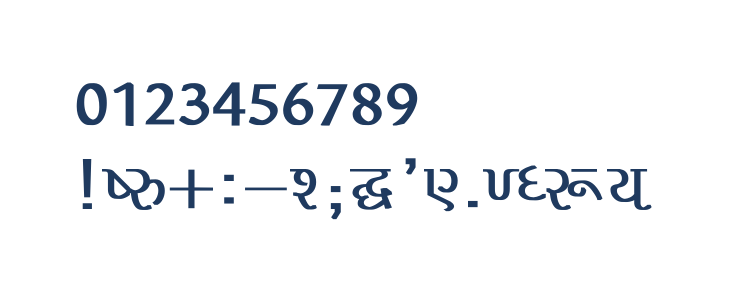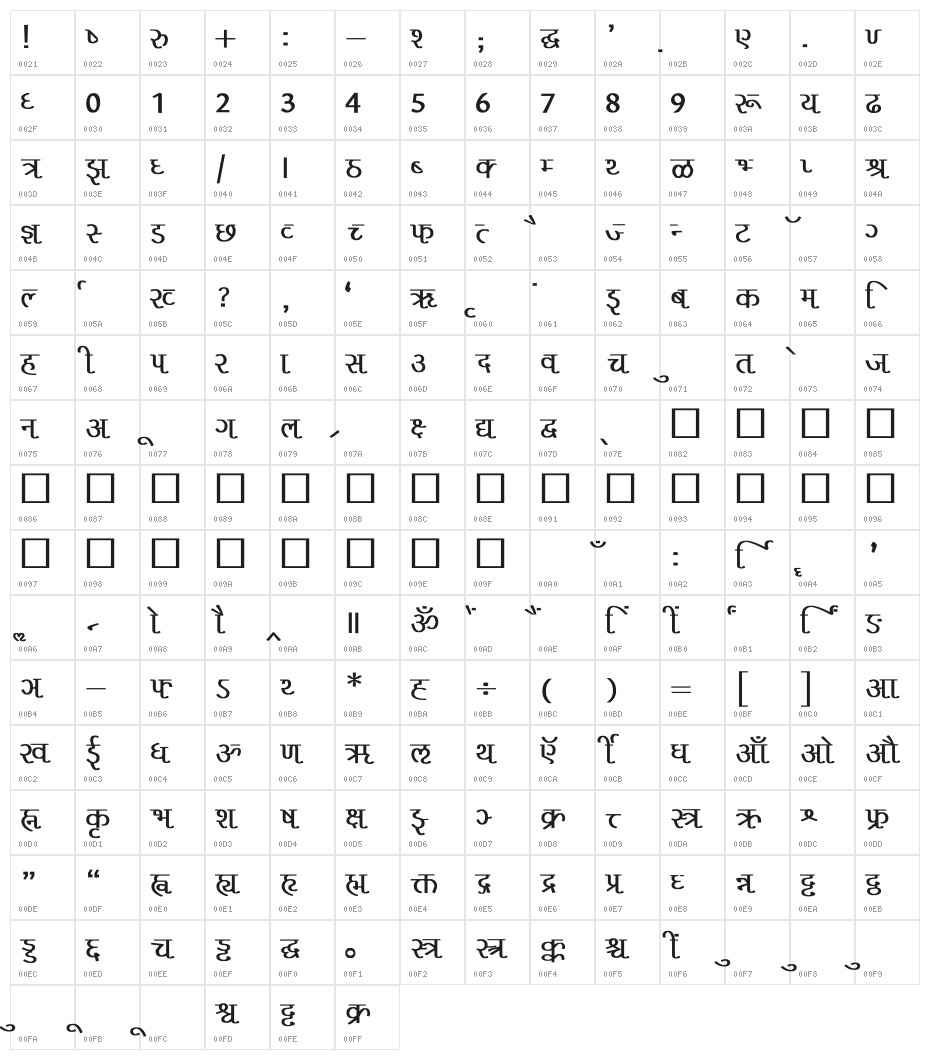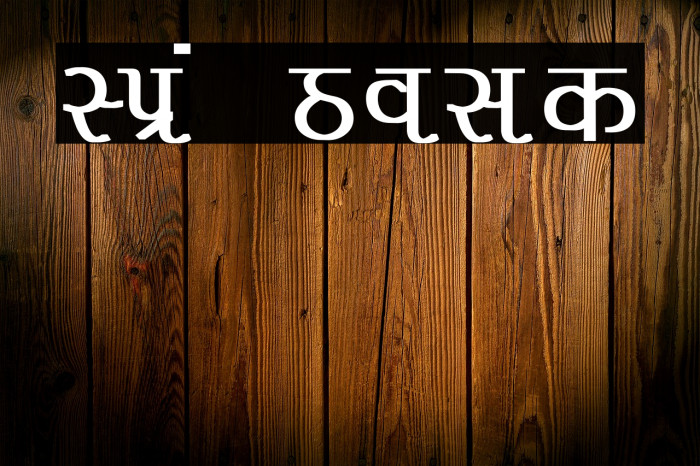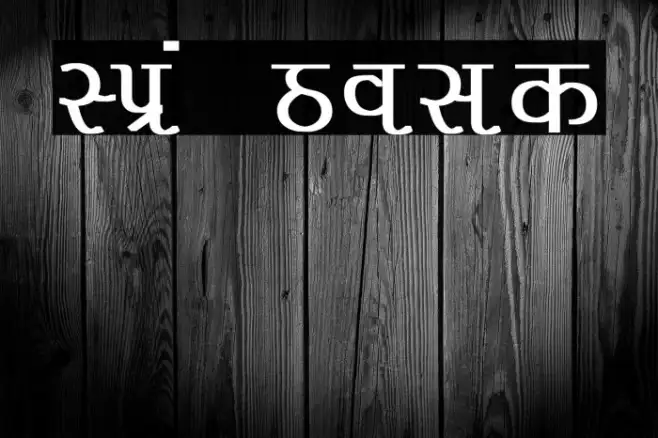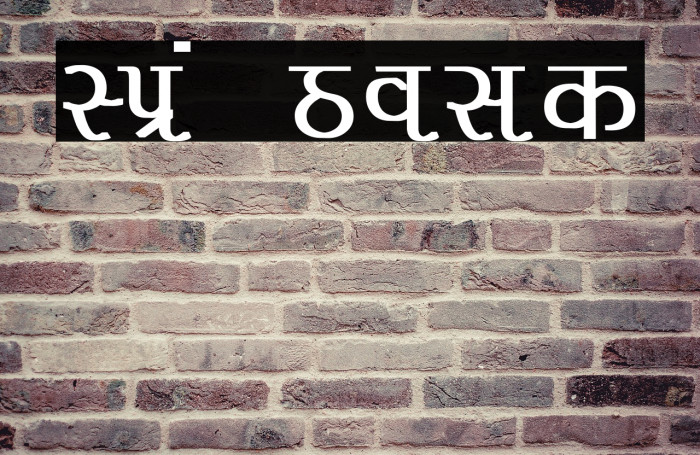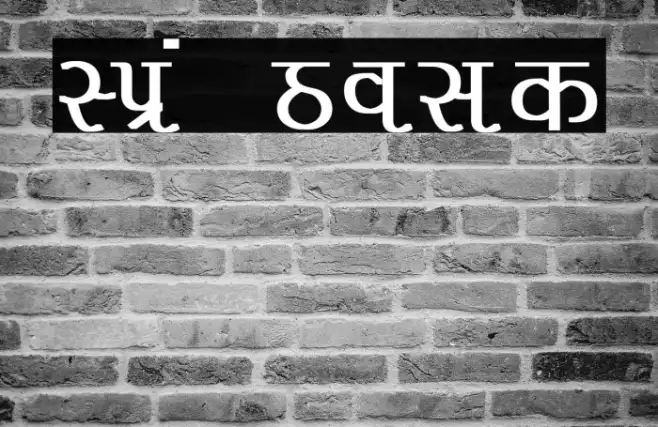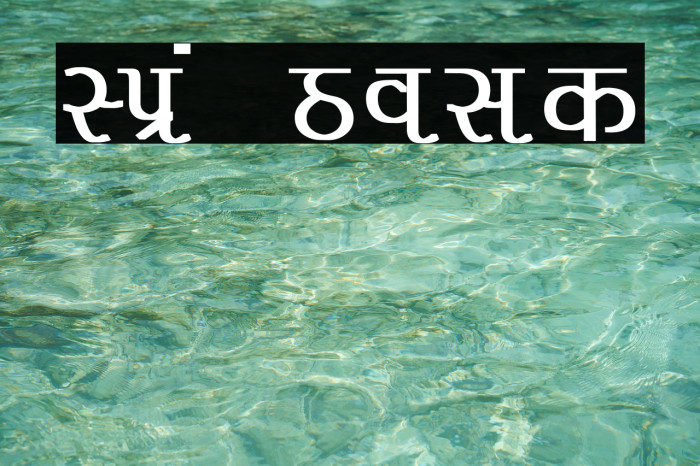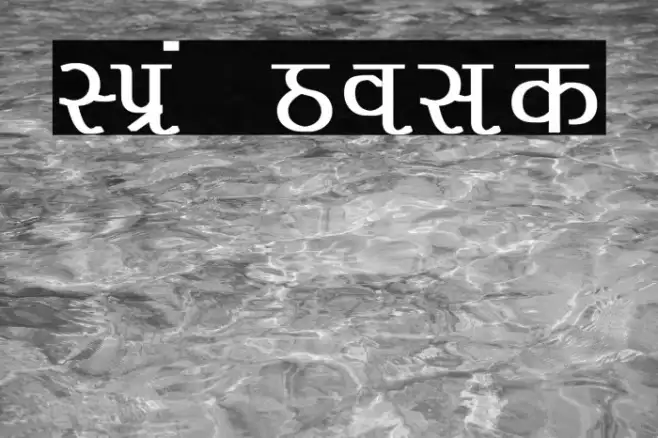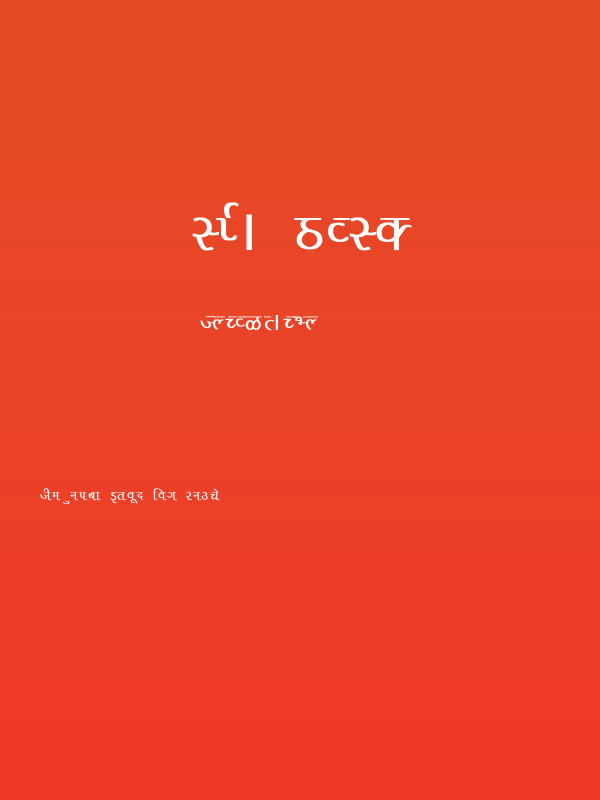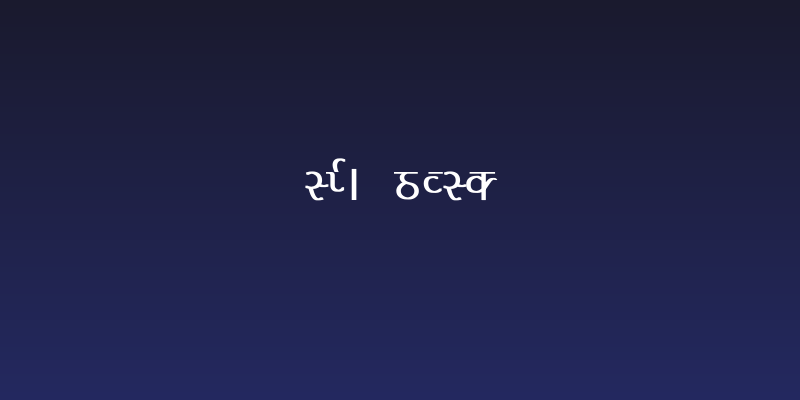
Liza Bold Font
Liza Bold Description
This font features a bold and striking design with a strong presence. The characters are crafted with a high level of detail, showcasing intricate curves and sharp edges. The overall appearance is both traditional and modern, making it versatile for various applications. The numerals are clear and distinct, while the special characters add a unique flair. The font's boldness ensures readability, even at smaller sizes, while maintaining its aesthetic appeal.